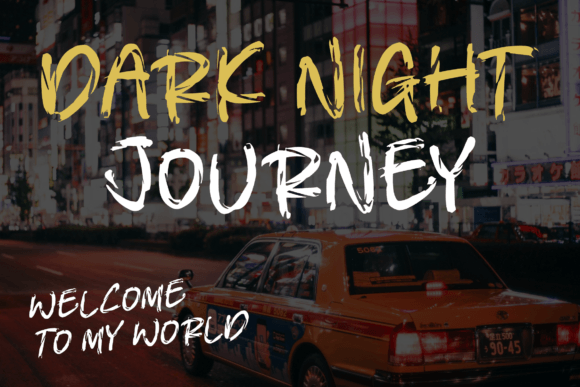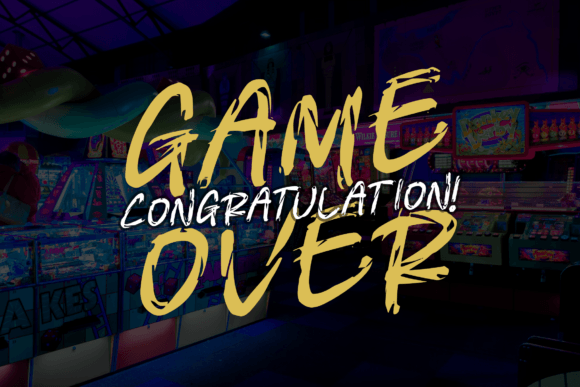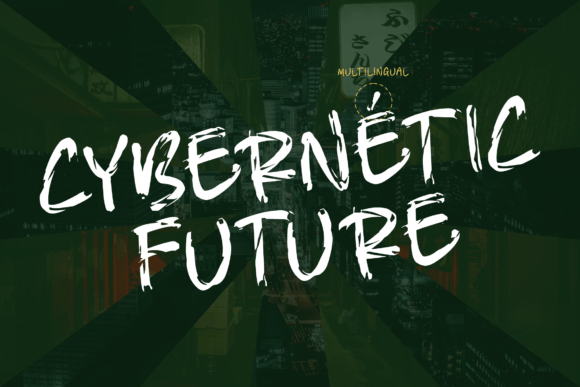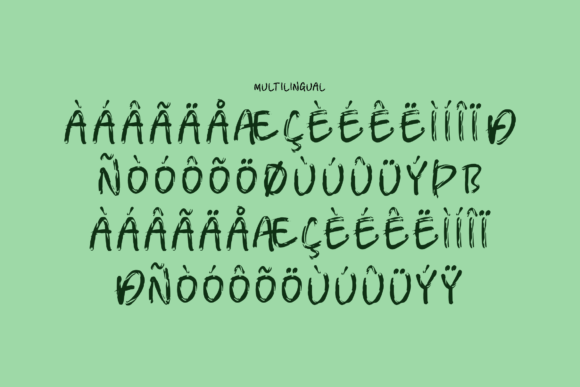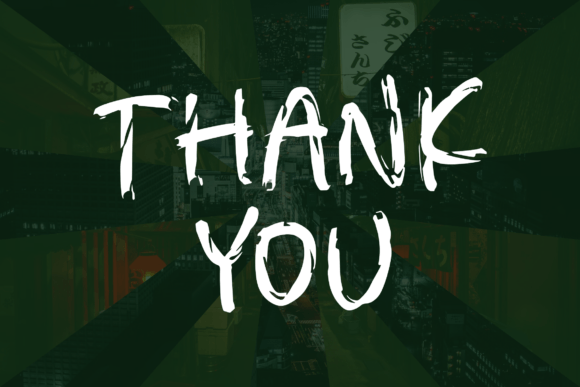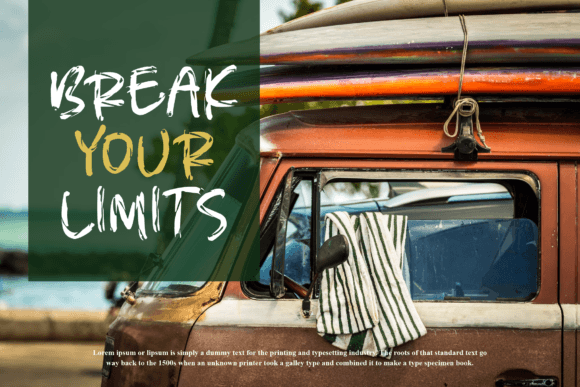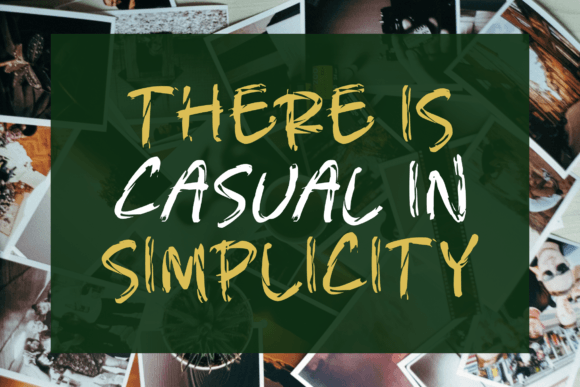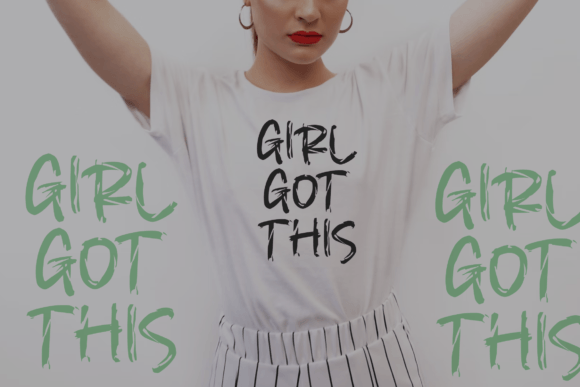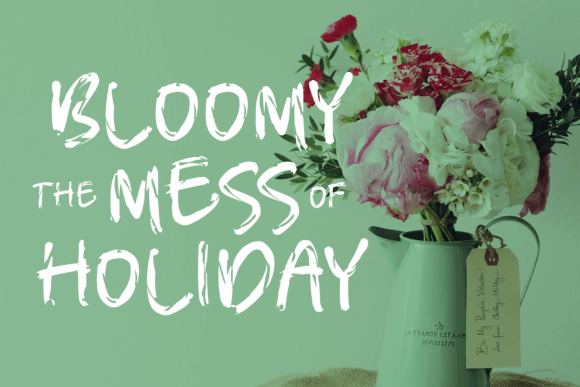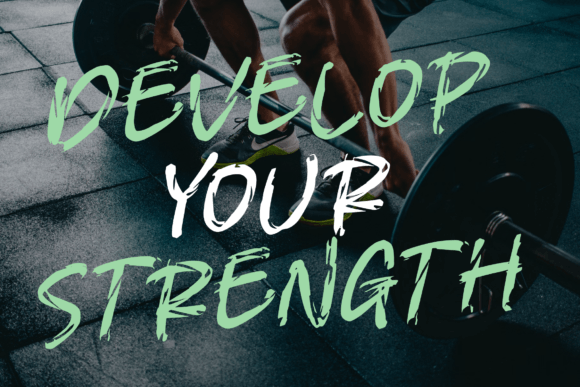
Cybernetic Font
About Cybernetic Font
“CYBERNETIC” is not just a font; it’s a handwritten brush script that adds a charming and dynamic touch to your projects. Whether you’re working on quotes, packaging, or any other creative endeavor, this font sends the message you desire with style and personality.
The uniqueness of “CYBERNETIC” lies in its handwritten brush strokes. Each letter is crafted with care, capturing the fluidity and energy of hand-drawn characters. This brush script gives your text an authentic, artistic feel, making it stand out in a world of digital uniformity.
Imagine using “CYBERNETIC” for your quotes. Whether you’re creating inspirational posts for social media or designing quote prints, this font injects a sense of dynamism and passion into your words. The brush script adds an expressive quality, turning every quote into a visual statement.
For packaging, “CYBERNETIC” becomes a powerful tool. Whether you’re designing labels, tags, or product packaging, this font communicates a sense of handmade craftsmanship. It’s the perfect choice when you want your products to stand out on the shelves, conveying a blend of creativity and authenticity.
The brush script nature of “CYBERNETIC” makes it versatile across various design projects. It’s not just about letters; it’s about creating an experience. The strokes of the brush give your text movement and life, transforming ordinary words into visually captivating elements.
“CYBERNETIC” is designed to send the message you desire with flair. Its playful and dynamic nature makes it suitable for a range of creative applications, from branding to social media graphics. It’s a font that breaks free from the conventional, allowing you to infuse your designs with energy and character.
In summary, “CYBERNETIC” is your go-to font for adding a touch of charm and individuality to your projects. It’s more than just a script; it’s a visual storyteller, transforming your words into expressive and captivating works of art. Whether digitally displayed or printed on packaging, “CYBERNETIC” ensures that your message is not just seen but felt.